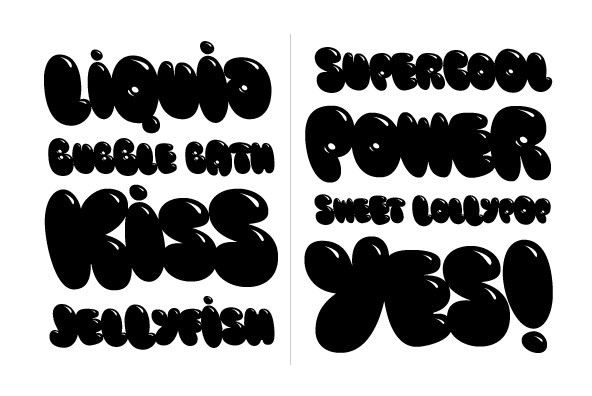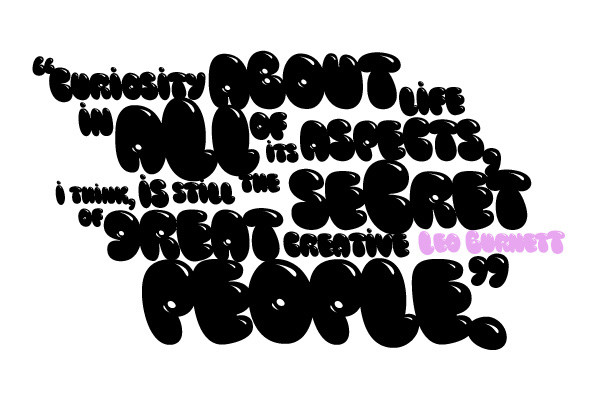
Blow Up
Foundry: HVD Fonts
Type designer Hannes von Döhren created a display typeface called Blow Up. A bubbly, sweet font with nice light effects. Perfect for use in big sizes on posters or flyers. You can use Blow Up Sans